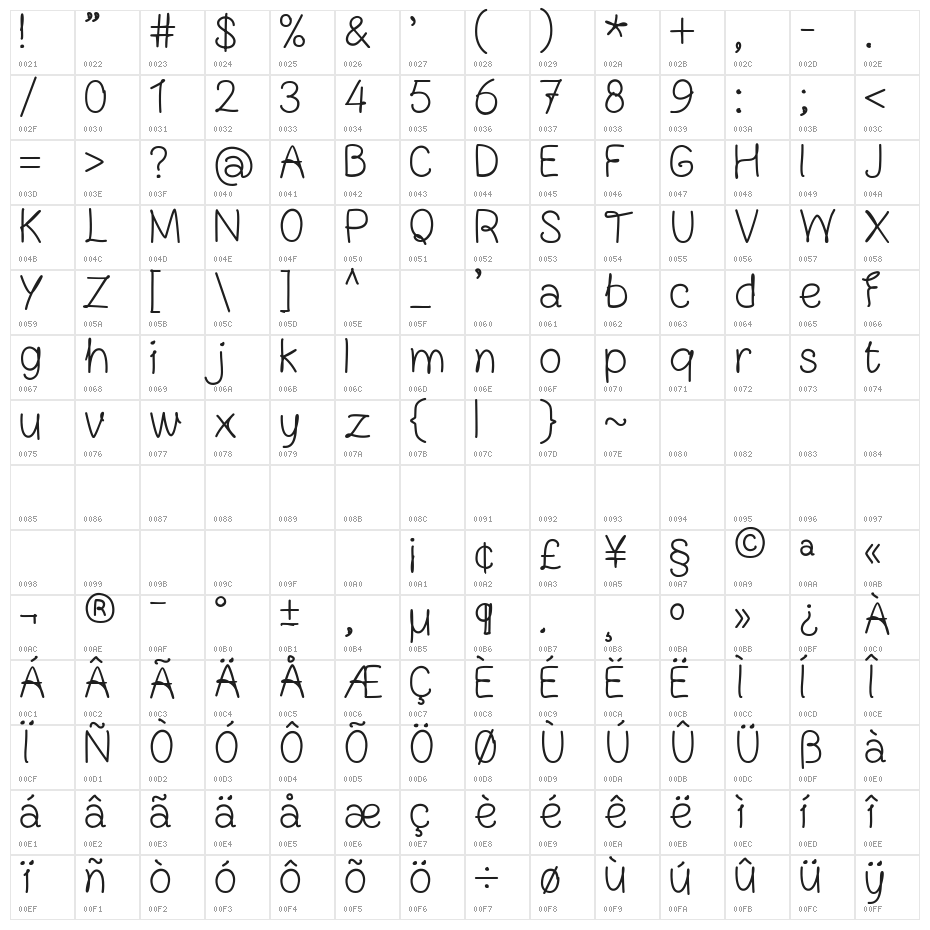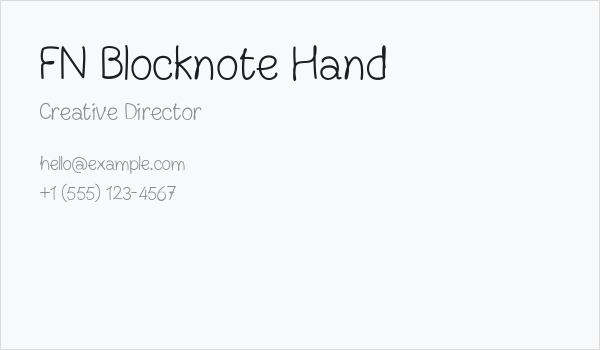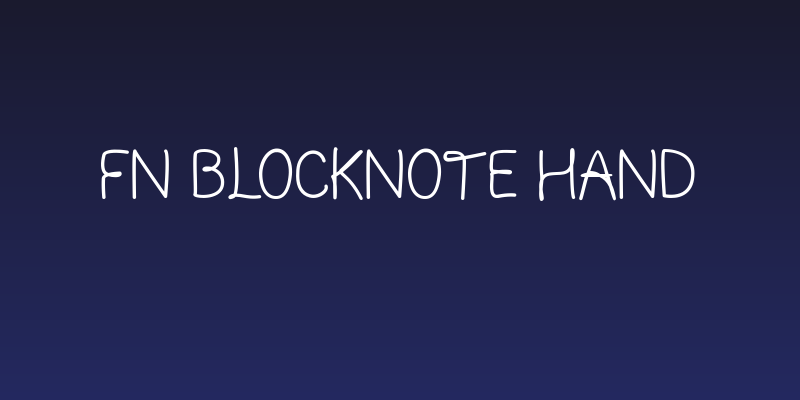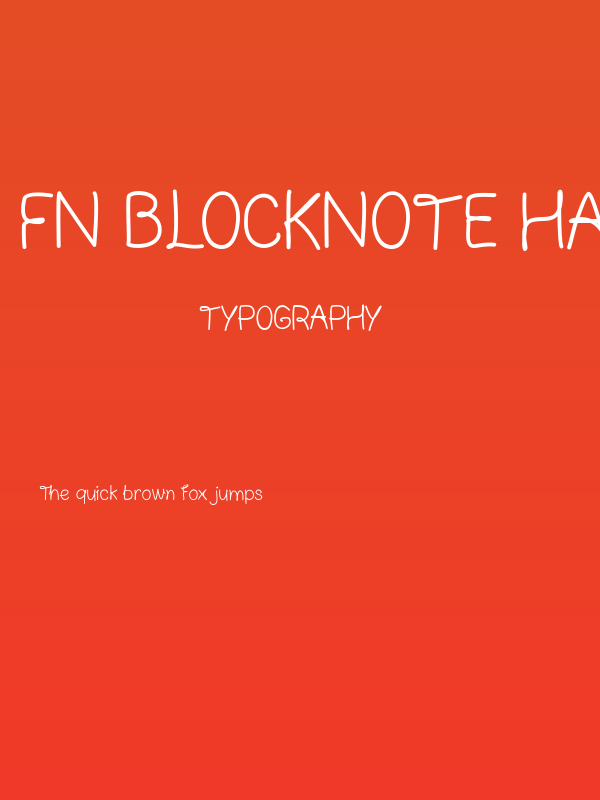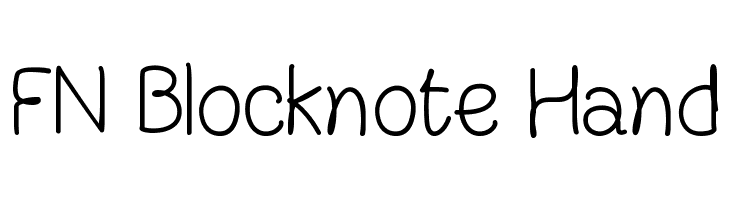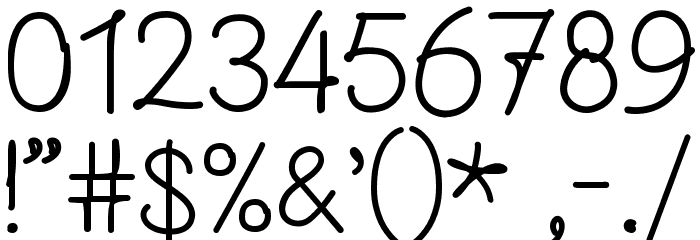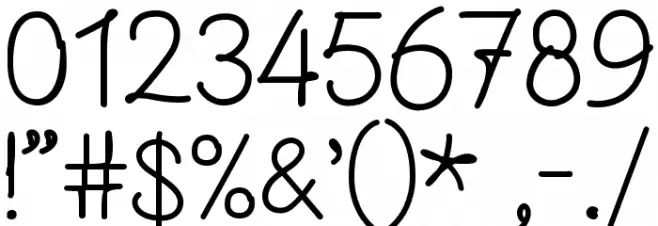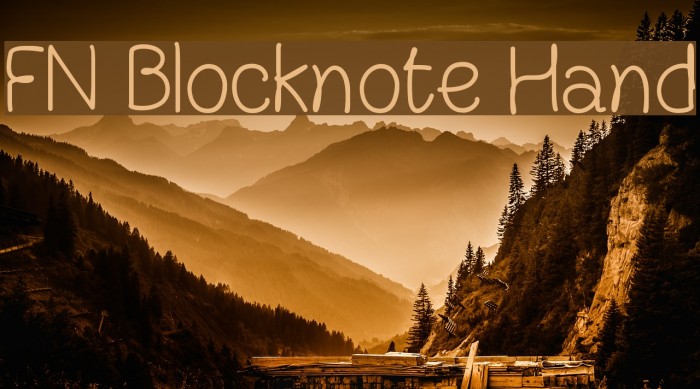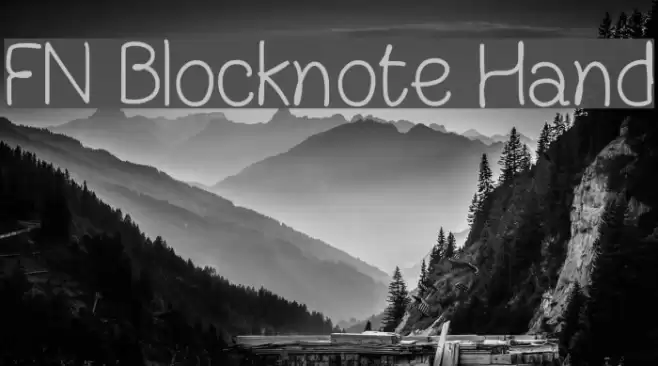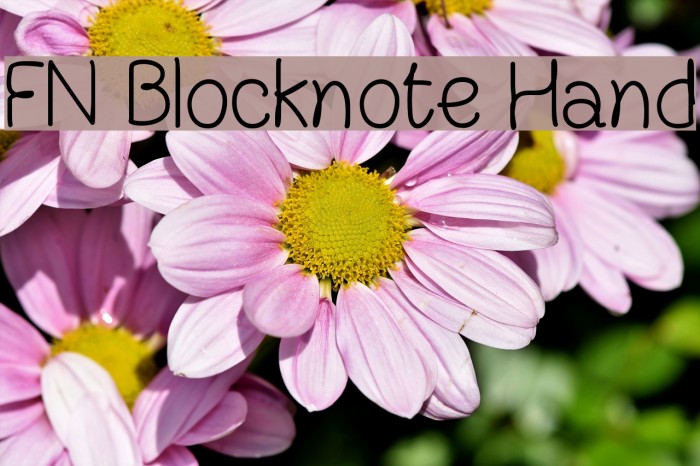
FN Blocknote Hand Font
FN Blocknote Hand Description
This font exudes a playful and casual handwritten style, characterized by its smooth, rounded edges and slightly irregular letterforms that mimic natural handwriting. The uppercase and lowercase letters maintain a consistent flow, creating a cohesive look that is both approachable and friendly. The numbers and special characters follow the same stylistic cues, ensuring uniformity across all glyphs. Its informal nature makes it ideal for projects that require a personal touch, such as greeting cards, invitations, or children's books. The font's legibility is enhanced by its medium contrast and normal character spacing, making it suitable for both headlines and short body text.
| Overall Style | Casual |
| Use Case | Headlines, Short body text, Personal projects |
| Proposed Projects | Ideal for greeting cards, invitations, children's books, and personal projects. |